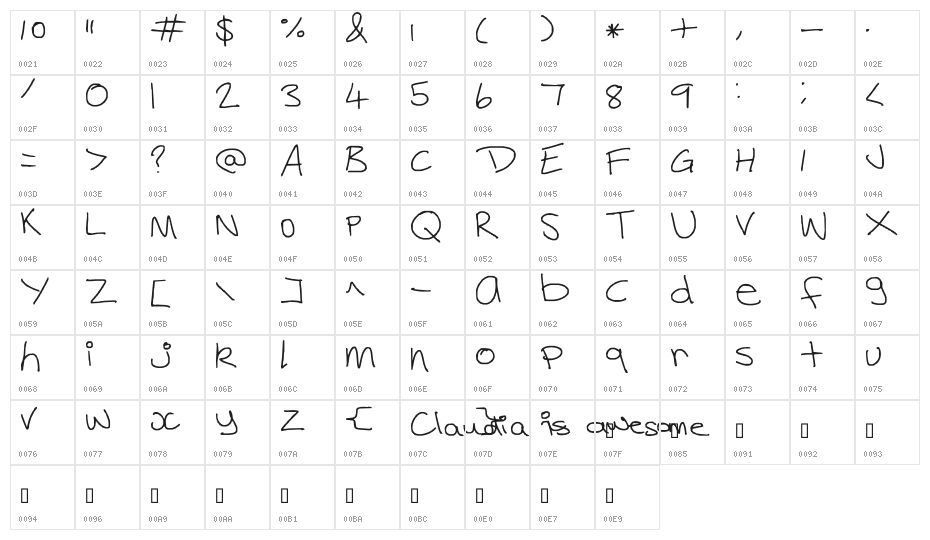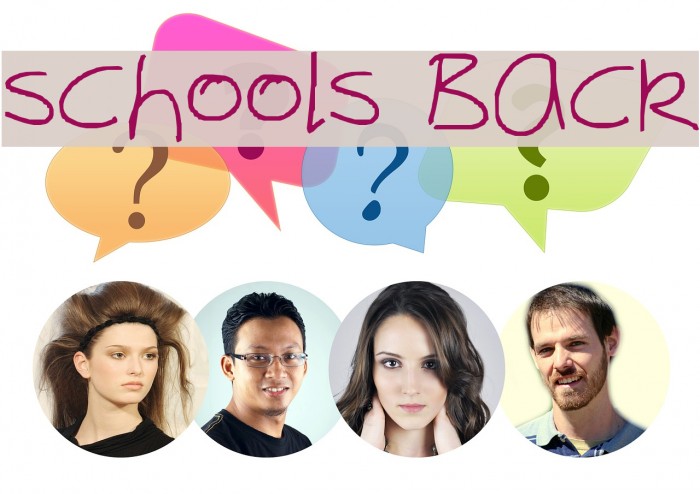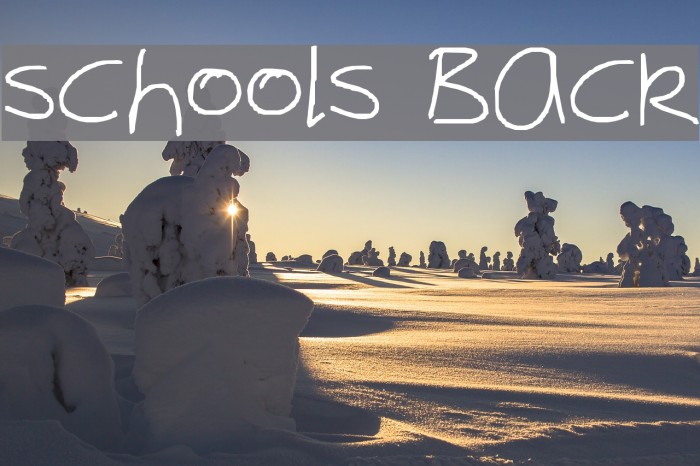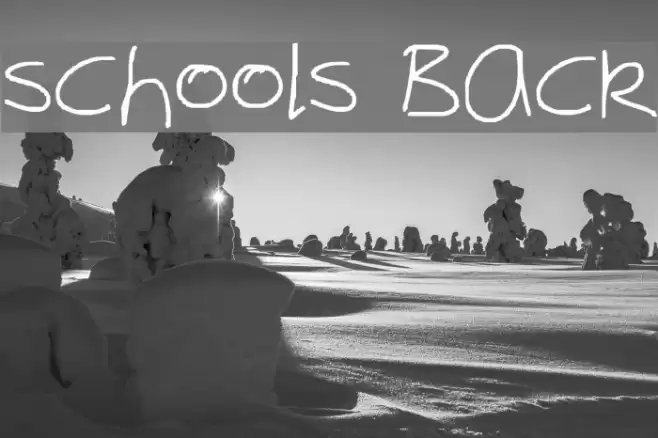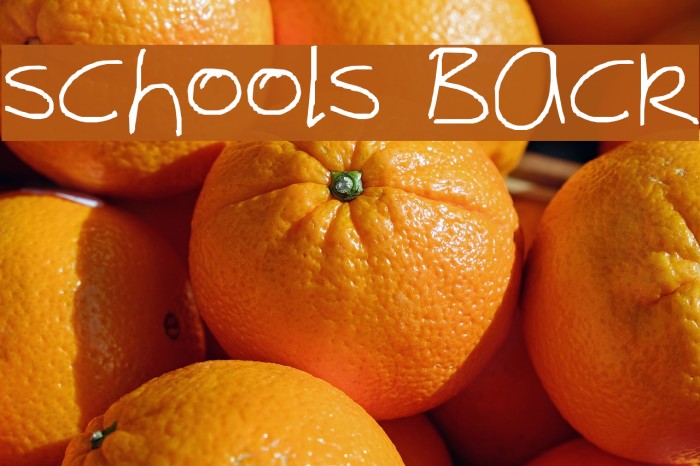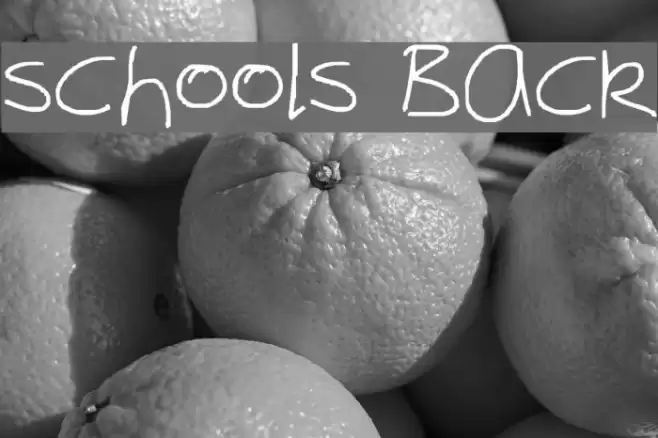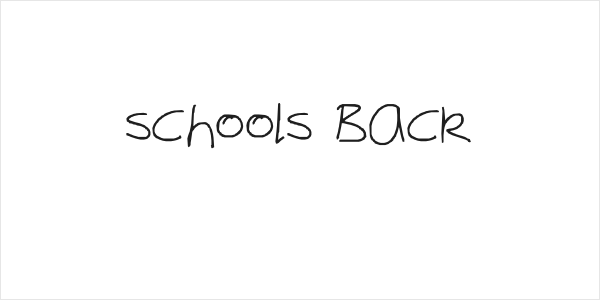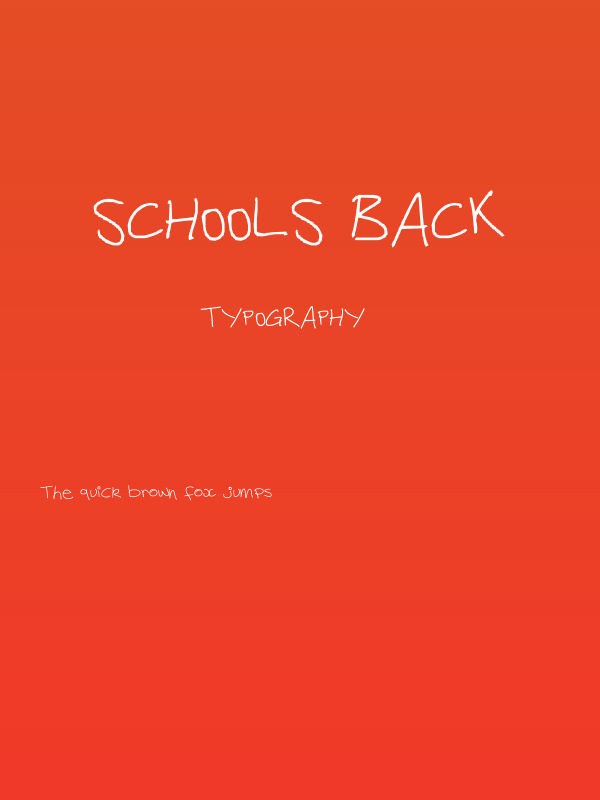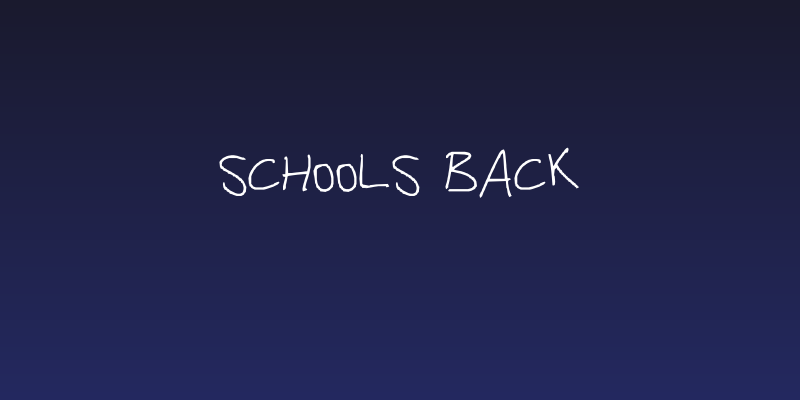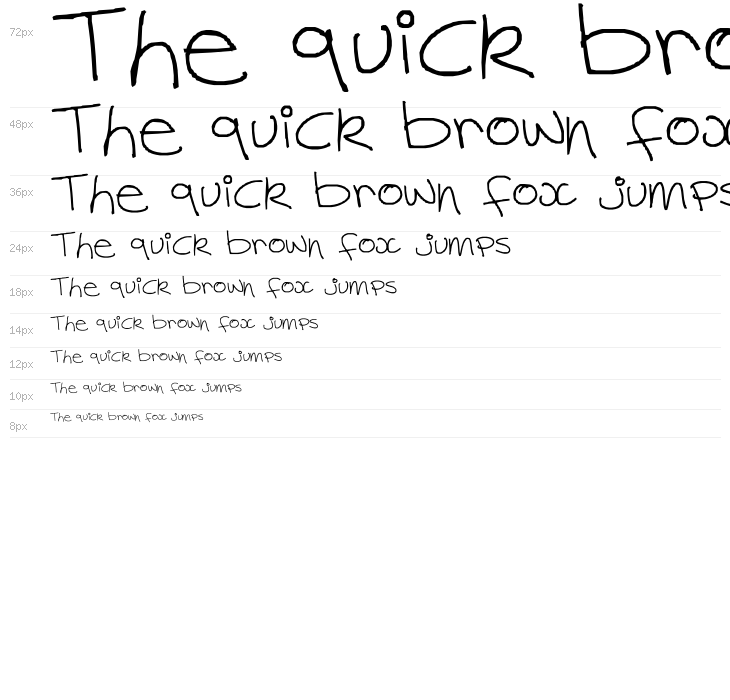
schools Back Font
schools Back Description
This font exudes a casual, handwritten style, reminiscent of notes scribbled on a notebook. The letters are unevenly spaced and vary slightly in size, adding to its informal and personal feel. The strokes are consistent in thickness, giving it a uniform appearance despite its playful nature. The uppercase and lowercase letters maintain a cohesive look, while the numerals and special characters blend seamlessly with the alphabet. This font is perfect for projects that require a touch of personality and warmth, such as invitations, greeting cards, or educational materials.
| Use Case | Headlines, Informal text, Personal notes |
| Proposed Projects | Ideal for invitations, greeting cards, educational materials, and personal notes. |